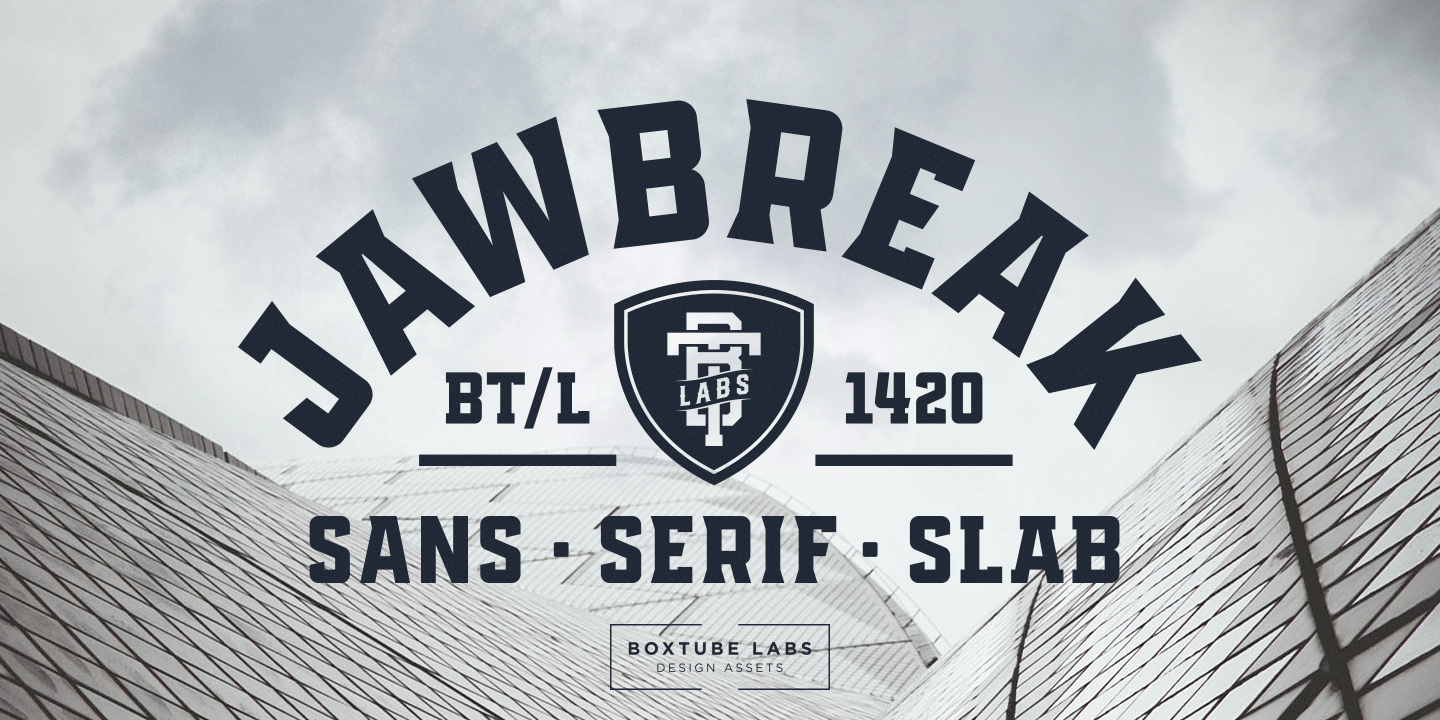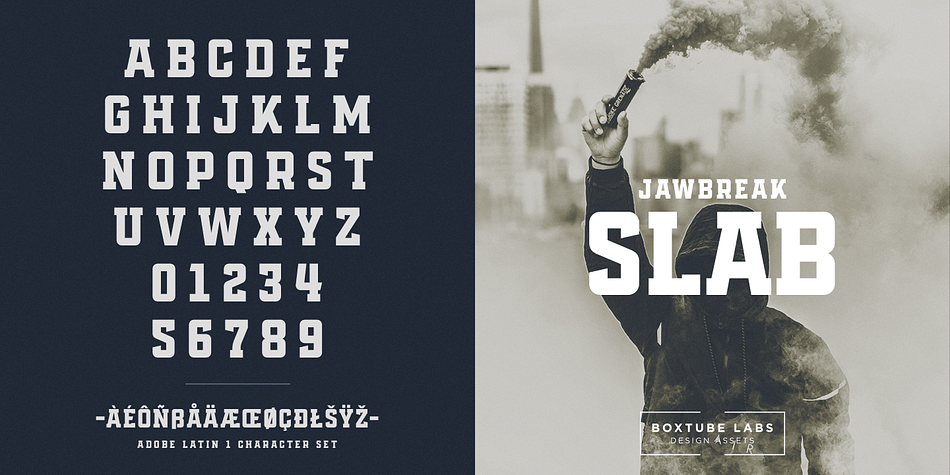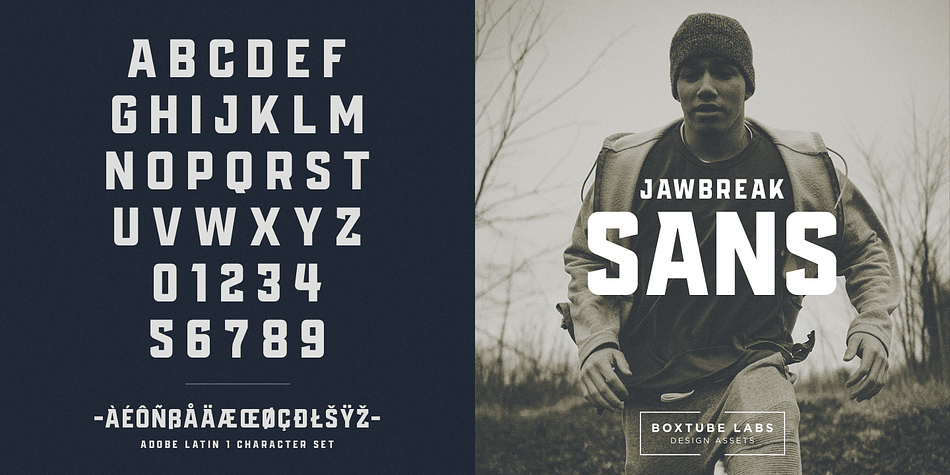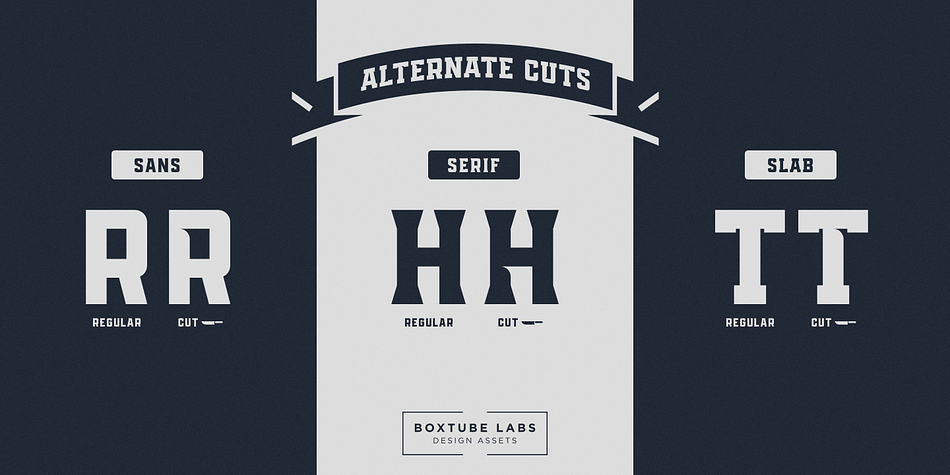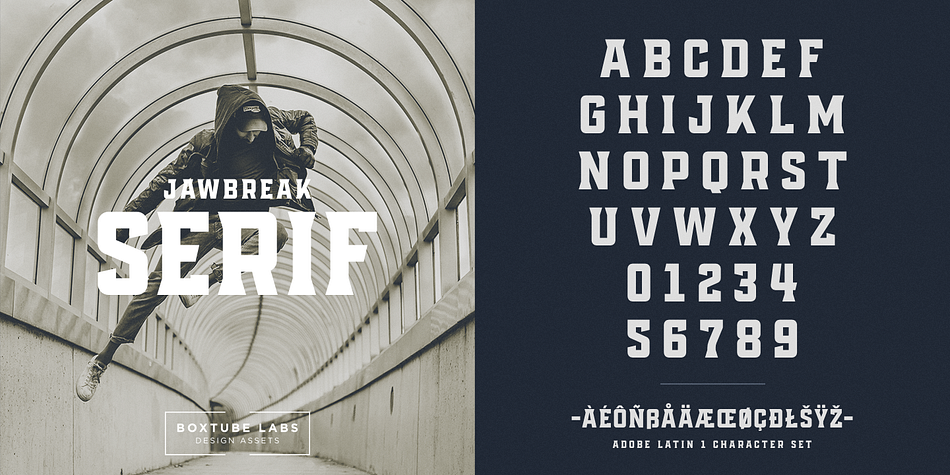
JAWBREAK
Jawbreak is a multiple classification font family. This typeface has six styles and was published by BoxTube Labs.
Introducing JAWBREAK - a modern sports font with classic roots.
Jawbreak’s three distinct styles and alternate cuts makes it incredibly versatile and perfect for logotypes, sports branding, posters, apparel design, magazine headlines, labels and so much more.
Jawbreak features a full Adobe Latin 1 character set, with support for most western languages including: Afrikaants, Basque, Breton, Catalan, Danish, Dutch, English, Finnish, French, Gaelic, German, Icelandic, Indonesian, Irish, Italian, Norwegian, Portuguese, Sami, Spanish, Swahili and Swedish.